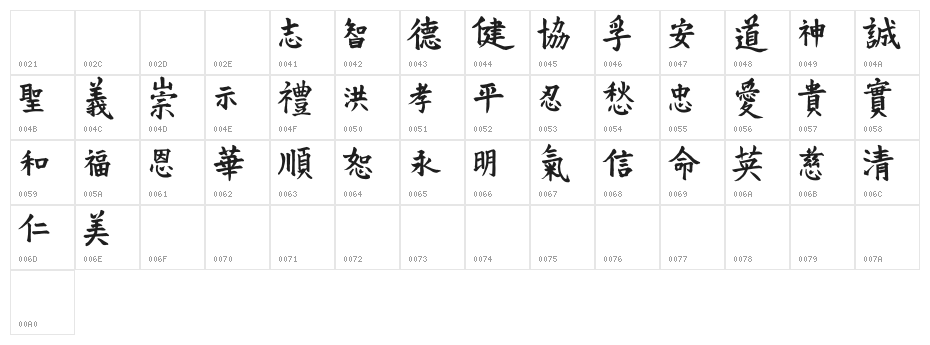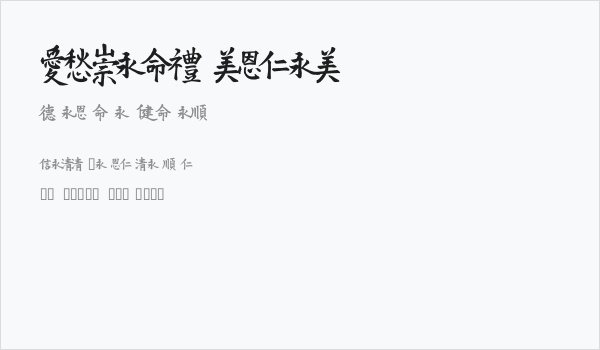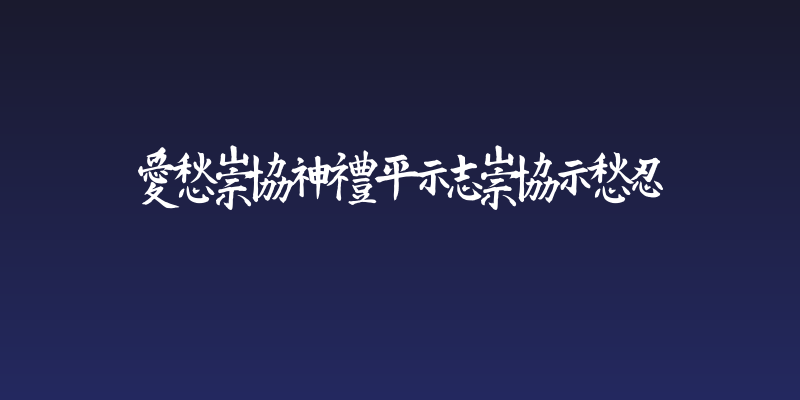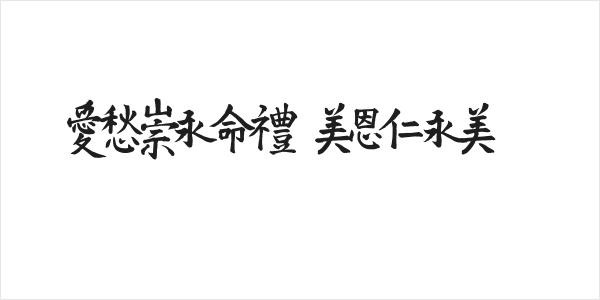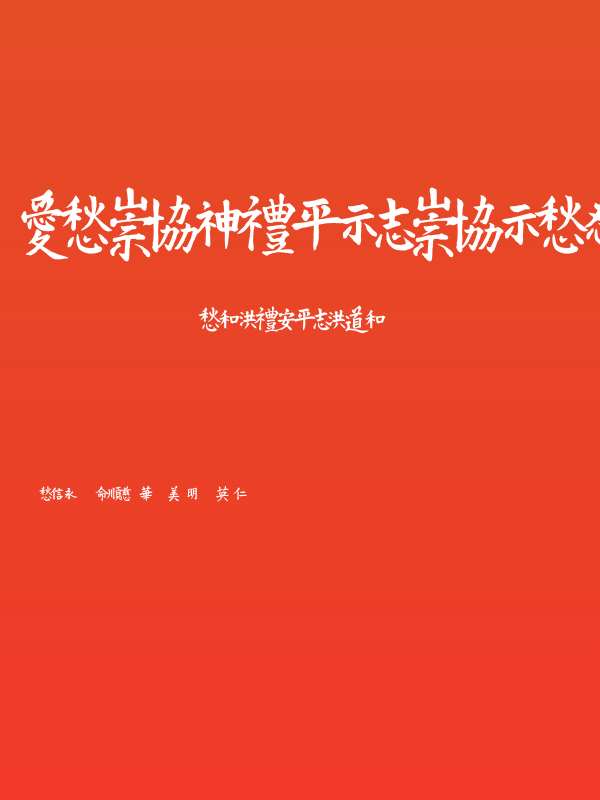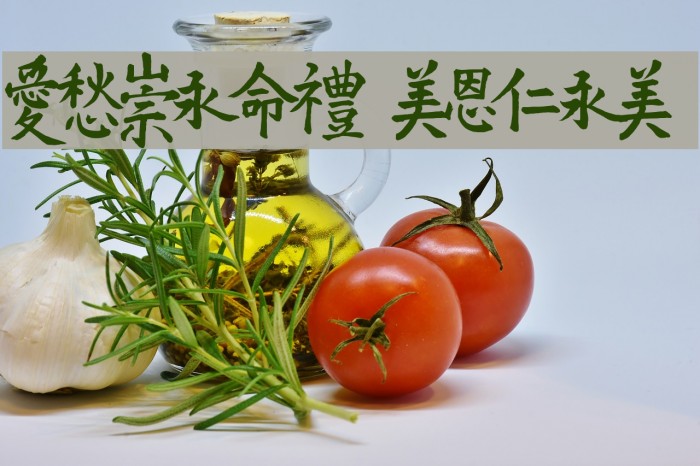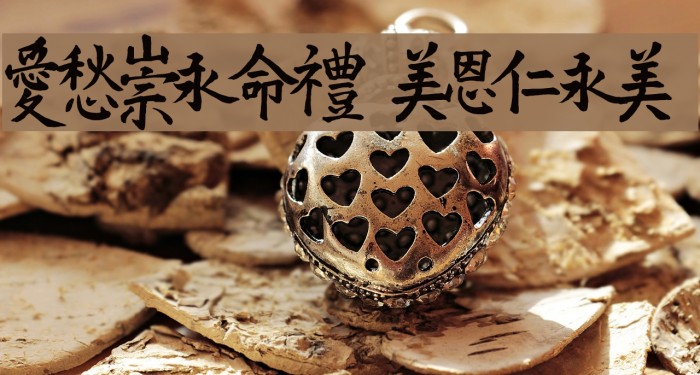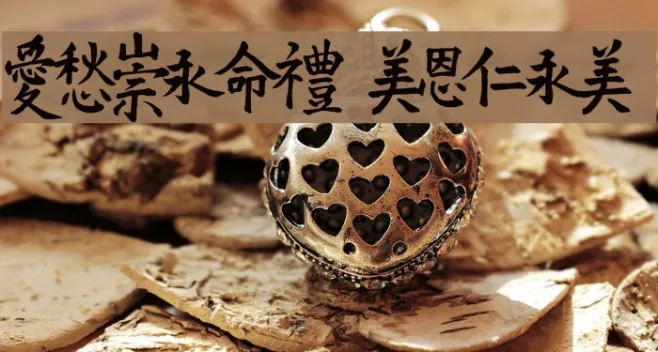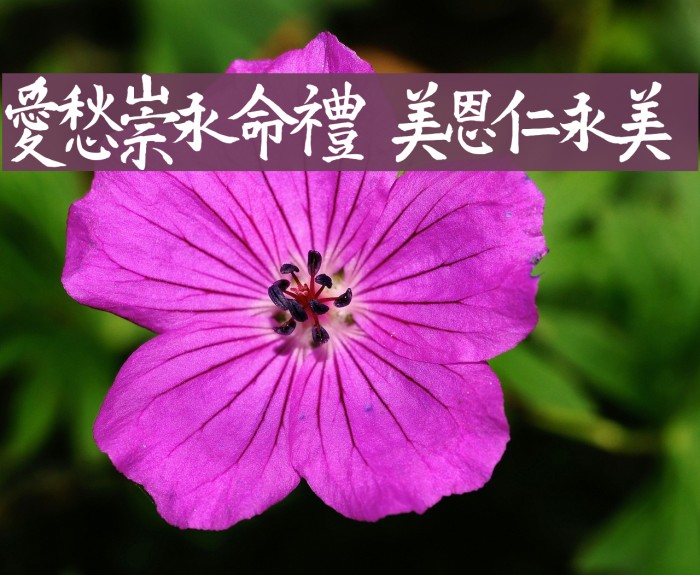
VTMeiOrnaments Font
VTMeiOrnaments Description
This font features a traditional and artistic style, reminiscent of East Asian calligraphy. The strokes are fluid and expressive, with varying thickness that adds a dynamic and elegant touch. The characters are intricately designed, showcasing a balance between bold and delicate lines. This ornamental style is ideal for projects that require a cultural or historical aesthetic, offering a sense of sophistication and grace. The font's unique flair makes it suitable for decorative purposes, adding an artistic element to any design.
| Overall Style | Traditional, Artistic |
| Use Case | Decorative elements, Artistic designs, Cultural projects |
| Proposed Projects | Ideal for cultural projects, artistic designs, invitations, and decorative elements. |